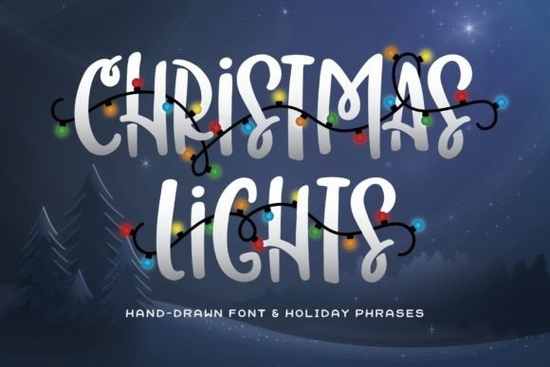
If you're creating holiday-themed designs whether for greeting cards, social media graphics, printable decor, or merch you know the right font can set the whole mood. The Christmas Lights Font delivers exactly that festive spark without overcomplicating things. It’s a bold, all-caps typeface packed with personality, and what really makes it special is the built-in holiday words already strung with glowing lights think “JOY,” “NOEL,” or “MERRY” ready to drop straight into your layout.
What makes this font different from other holiday fonts?
Most seasonal fonts rely on snowflakes, holly, or script swirls but the Christmas Lights Font leans into nostalgia with its string-light aesthetic. Each letter feels hand-strung, giving your design an authentic, handmade holiday vibe. Unlike delicate script fonts like those in our Christmas script collection, this one stands out with weight and clarity, making it ideal for headlines, banners, or product packaging where readability matters.
It’s also practical. Instead of manually adding light strings around text (which eats up time), you get pre-decorated holiday phrases included in the pack. That’s a real time-saver if you’re running a small print-on-demand shop or managing last-minute client requests during the busy season.
Who should use the Christmas Lights Font?
This font shines for:
- Print-on-demand sellers creating mugs, T-shirts, or wall art with instant holiday appeal.
- Crafters designing SVG cut files for vinyl projects or layered paper crafts.
- Small business owners updating social banners, email headers, or in-store signage.
- Teachers and hobbyists making classroom decorations or personalized gift tags.
Because it’s all-caps and bold, it works best for short phrases not body text. Pair it with a clean sans-serif or a subtle handwritten companion (like something from our casual handwriting fonts) to balance the visual energy.
How to pair it with other fonts
The Christmas Lights Font has strong visual presence, so keep supporting fonts simple. Avoid pairing it with other decorative or overly ornate styles like the flourishes in wedding script fonts as they’ll compete rather than complement.
Instead, try these combos:
- A neutral sans-serif (like Helvetica or Montserrat) for dates, prices, or instructions.
- A soft, rounded handwritten font similar to options in our rainbow script fonts for warmth without distraction.
- If you want contrast with another holiday font, consider a minimalist option like those in black sample fonts, which offer elegance without extra ornamentation.
Remember: the goal is to let the light-strung letters be the star. Everything else should support, not overshadow.
Tips for using it in real projects
Because the font includes pre-made holiday words with integrated lights, start by checking what phrases are included before building your design from scratch. You might save hours by using “HAPPY HOLIDAYS” as-is instead of assembling each letter individually.
For digital use (like Instagram stories or YouTube thumbnails), add a subtle outer glow or soft shadow in your editing software to enhance the “lit-up” effect especially if your background is dark.
For physical products, test print at actual size. The light details are charming but can get lost if scaled too small. Stick to headlines above 36pt for best results on items like tote bags or posters.
And don’t limit yourself to red and green! Try navy + gold, cream + copper, or even monochrome schemes the bold structure holds up well in unexpected palettes.
Before you finalize your project, ask: does this feel joyful but not cluttered? Festive but still readable? If yes, you’ve nailed it.
With the right approach, the Christmas Lights Font isn’t just seasonal it’s a reliable tool that brings consistent cheer to every project it touches.